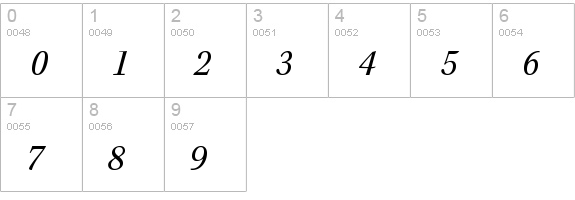
Kepler Std Semicondensed Italic Font Details
Kepler Std Semicondensed Italic is a distinctive, italic variant in the Kepler typeface family \xE2\x80\x94 well suited to design and typography projects.
Kepler Std Semicondensed Italic is a visually striking and versatile font that encompasses the perfect balance between elegance and modernity. With its sleek and slanted design, this typeface adds a touch of sophistication to any project. Featuring a condensed form, Kepler Std Semicondensed Italic optimizes space without compromising legibility. Its italicized style adds a touch of dynamism and movement, making it ideal for conveying a sense of energy and creativity. This font boasts a wide range of applications, from editorial design and branding to advertising and web design. Whether used for headlines, subheadings, or body text, Kepler Std Semicondensed Italic commands attention and exudes professionalism. One of the standout features of Kepler Std Semicondensed Italic is that it is freely available to download at FontsMarket.com. This means that designers and enthusiasts alike can access this exceptional font without any cost, making it an invaluable resource for both personal and commercial projects. With its timeless appeal and bold presence, Kepler Std Semicondensed Italic is sure to elevate any design, leaving a lasting impression on viewers. Its versatility, combined with its easily accessible nature, makes it an essential addition to any typography collection. Whether used for print or digital media, this font is guaranteed to elevate the overall aesthetic and deliver a captivating visual experience.